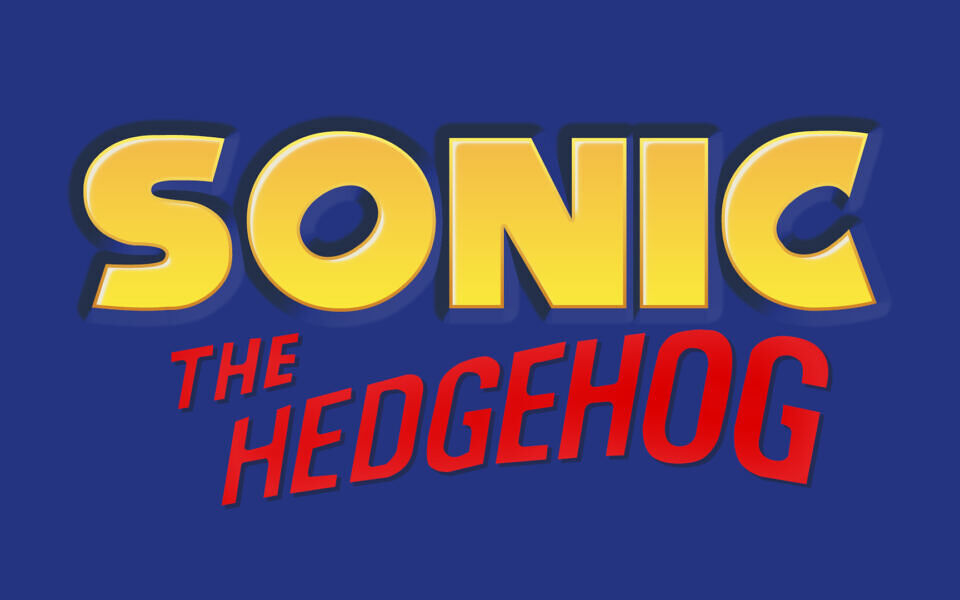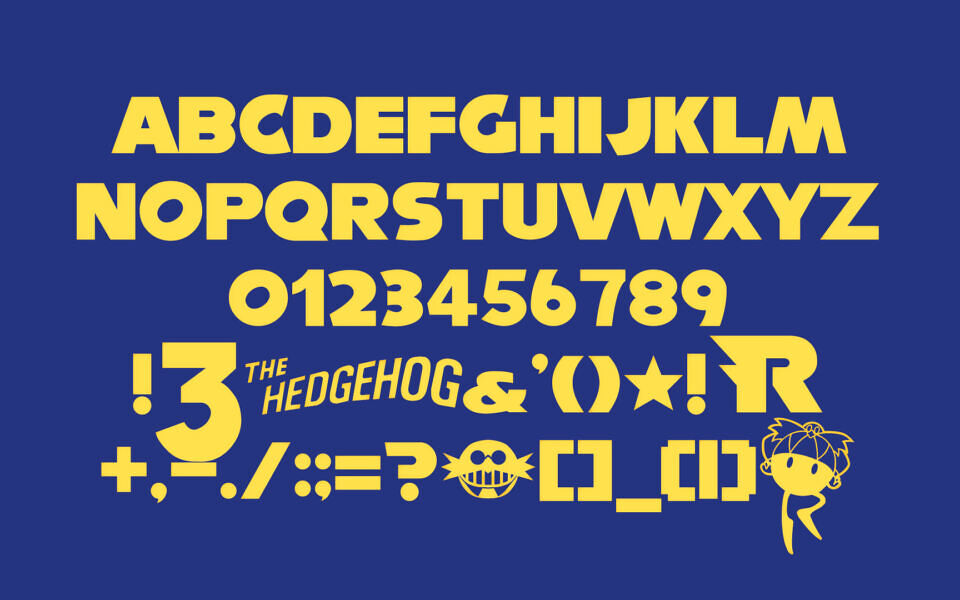
Nise Sega Sonic Font
Inspired by classic Sonic the Hedgehog visuals, this replica display font recreates the bold, energetic style of SEGA-era logos. It features sharp, geometric letterforms with a playful retro feel, ideal for nostalgic designs and gaming-themed projects.
Special characters are mapped creatively to match iconic logo elements, enhancing authenticity. Designed primarily for personal use, it captures the fast-paced, arcade spirit of early console branding.
The following symbols include special characters: $, %, @, #, ‘, ”
Designed by: Act Select